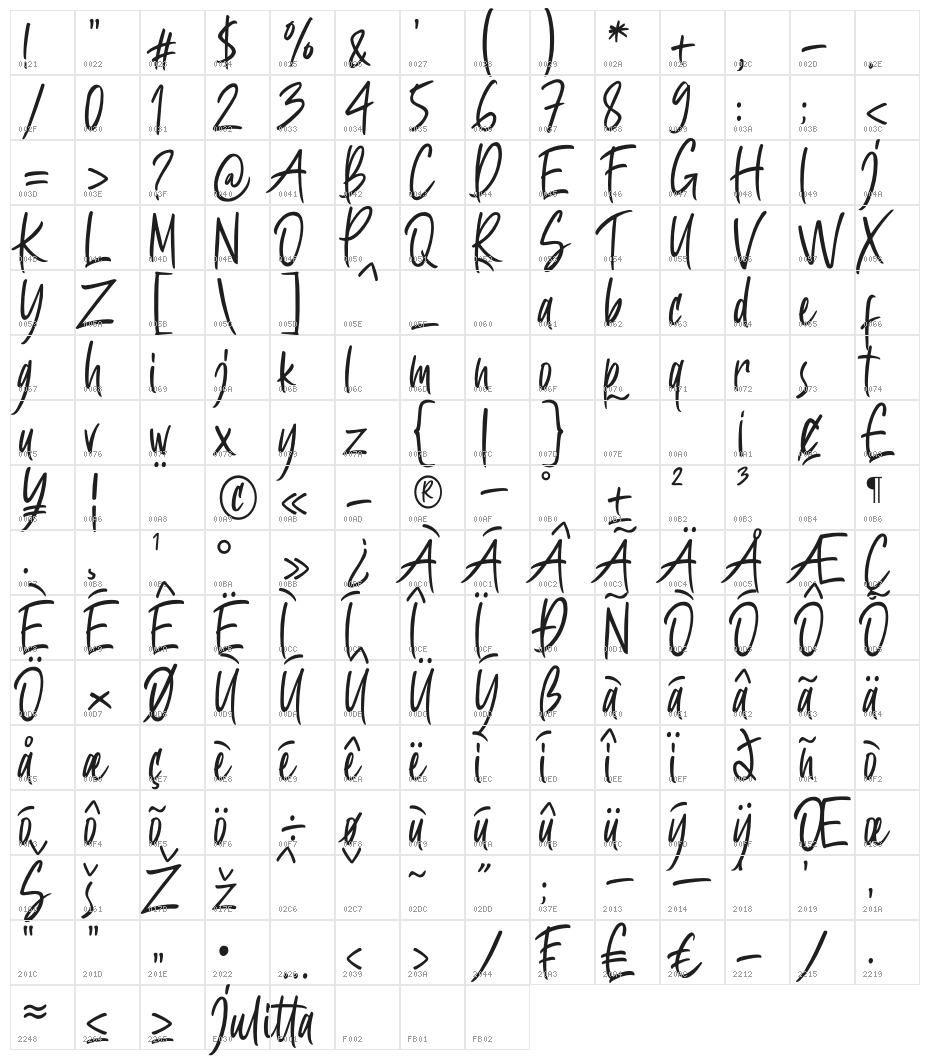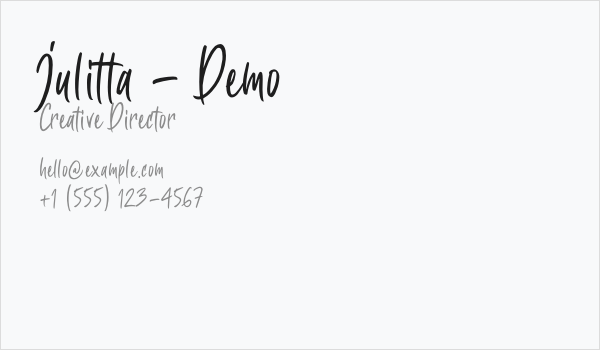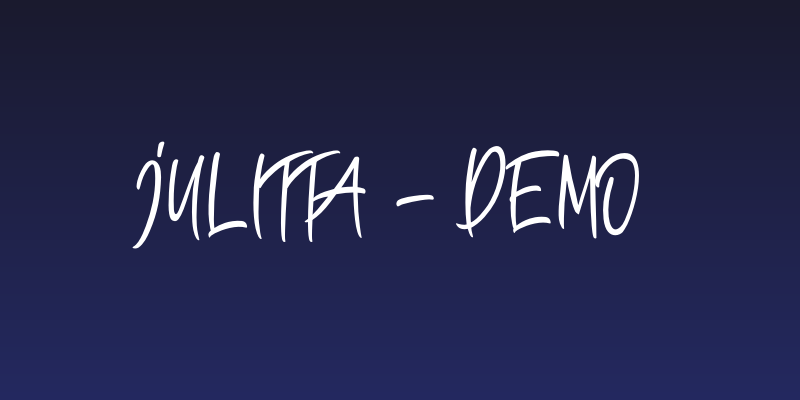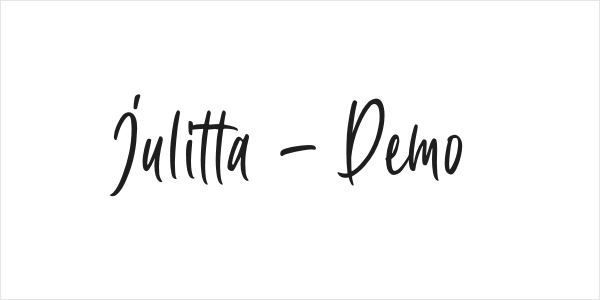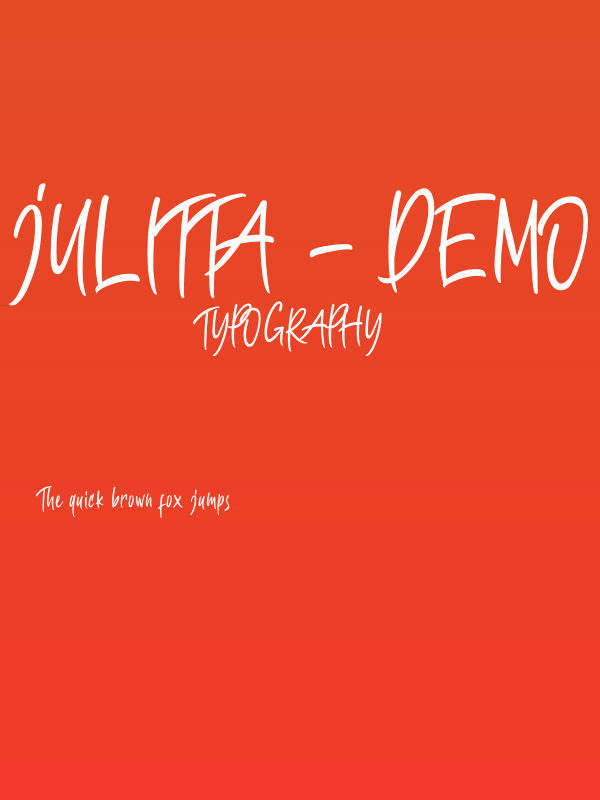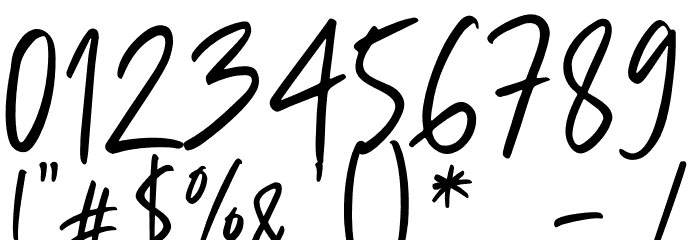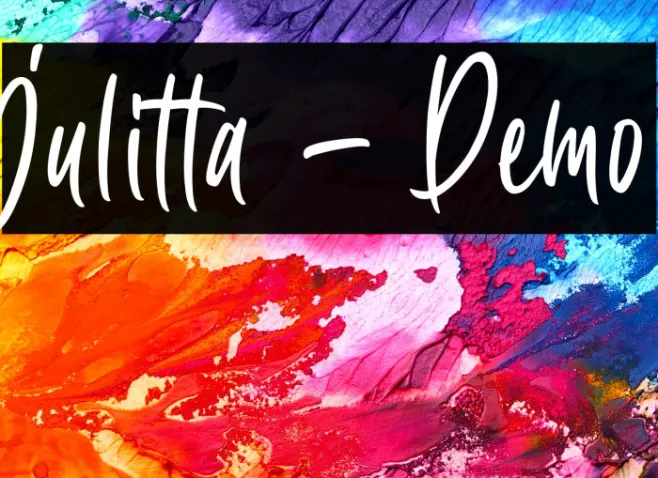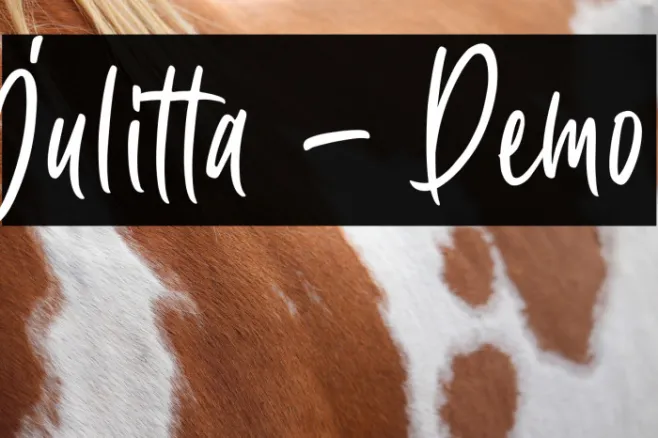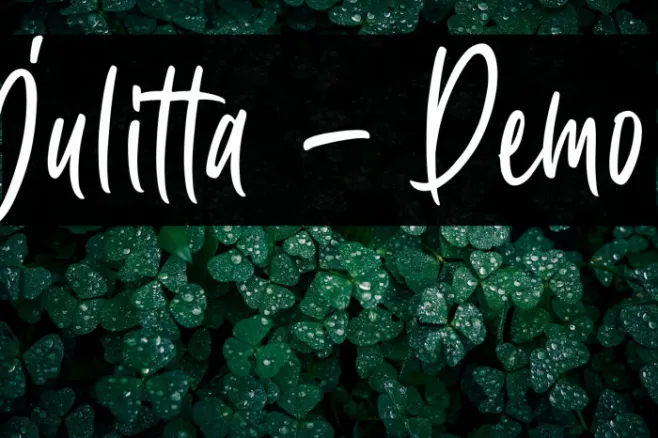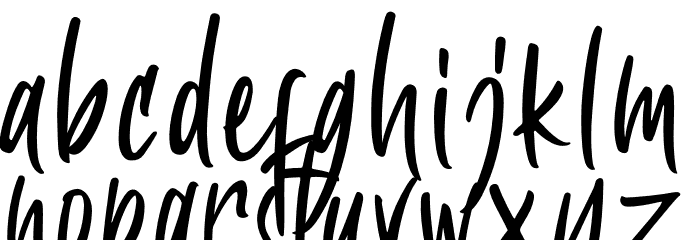
Julitta - Demo Font
Julitta - Demo Description
This font exudes a dynamic and energetic vibe with its handwritten style. The letters are crafted with a natural flow, featuring irregular strokes that give it a personal and informal touch. The uppercase and lowercase letters maintain a consistent style, with some characters extending slightly above or below the baseline, adding to its casual charm. The numerals and special characters are equally expressive, maintaining the same lively and spontaneous feel. This font is perfect for projects that require a personal, human touch, such as invitations, greeting cards, or creative branding.
| Overall Style | Casual, Energetic, Personal |
| Use Case | Headlines, Creative projects, Personal branding |
| Proposed Projects | Ideal for invitations, greeting cards, personal branding, and creative projects. |